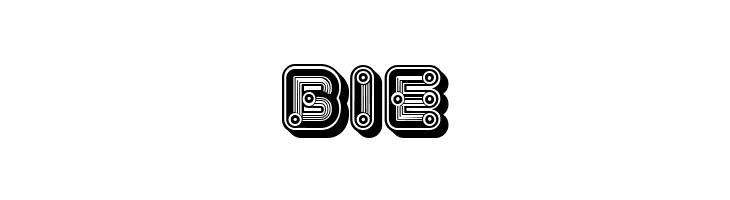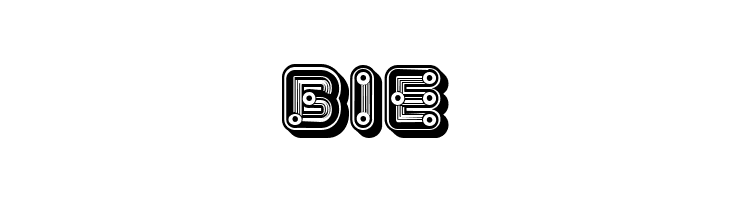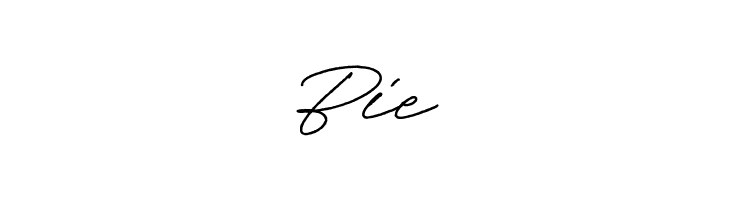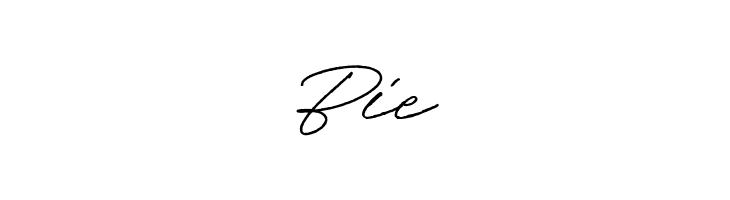
A bold, expressive script font with flowing, cursive letterforms.
A bold, decorative font with a futuristic, circuit-inspired design.
A sophisticated, elegant handwritten font with fluid, continuous strokes.
A bold, decorative font with a futuristic, tech-inspired design.
A graceful script font with fluid, cursive strokes and elegant connections.
A bold, elegant script font with flowing, connected characters.
A bold, modern font with sharp, angular lines and a unique flair.
A whimsical decorative font with heart-shaped accents on each character.